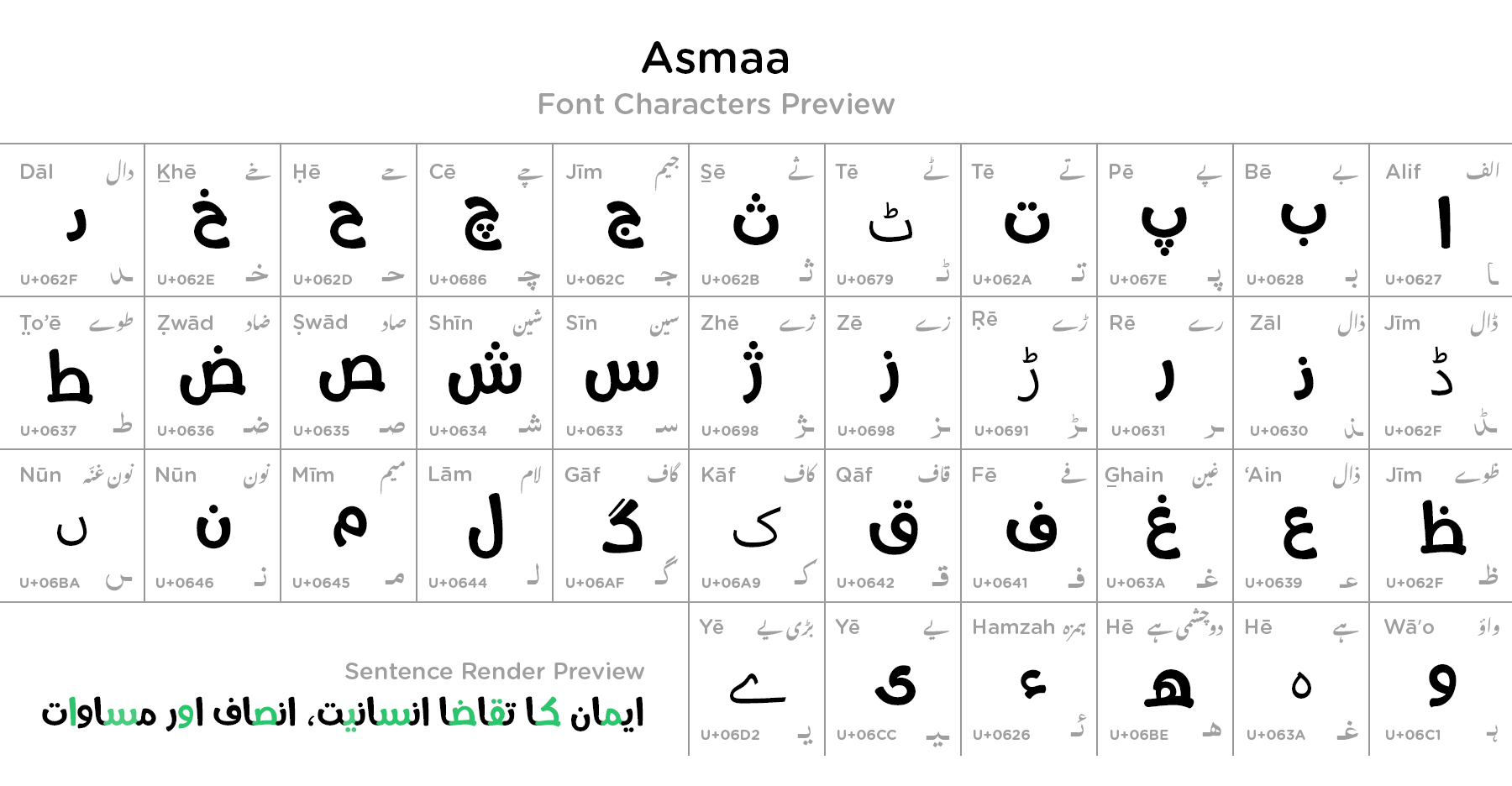
Asmaa is a bold and bubbly Persian font released on July 21, 2018. It was carefully crafted by designer Yousef Rifa’ee of font foundry ZakDesign. It is not a calligraphic but a creative font made specially to highlight the liveliness of kids’ products and accessories. With 288 glyphs and 278 characters, the font can easily type any language across several design platforms. Moreover, it supports Arabic, Latin, Urdu, and some other languages for a diverse typographic experience. The font features a medium width and filled letters with varying thickness throughout, adding to its dynamic outlook. Its strokes are solid yet playful, complemented by blunt circular corners and rounded wide edges, enhancing its fat and fluffy appeal. Although it offers only one weight, its versatility shines in titles, headings, logos, kids’ books, and branding materials.
While best suited for short texts due to its bold and bubbly appearance, Asmaa maintains high legibility even at smaller resolutions. The monospaced spacing between letters ensures consistency and readability across various applications. With Unicode blocks including Basic Latin, Arabic, Arabic Presentation Forms-A, and -B, this font offers broad versatility for digital and print media, particularly in projects aimed at children or those seeking playful creativity.